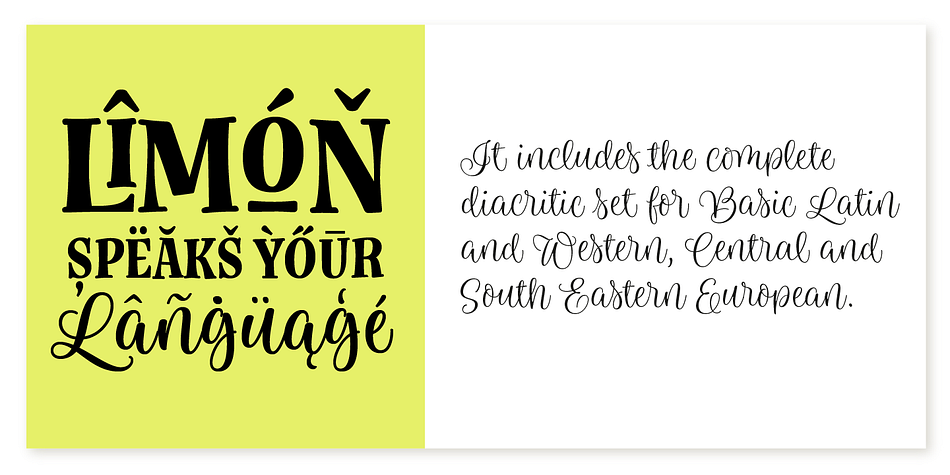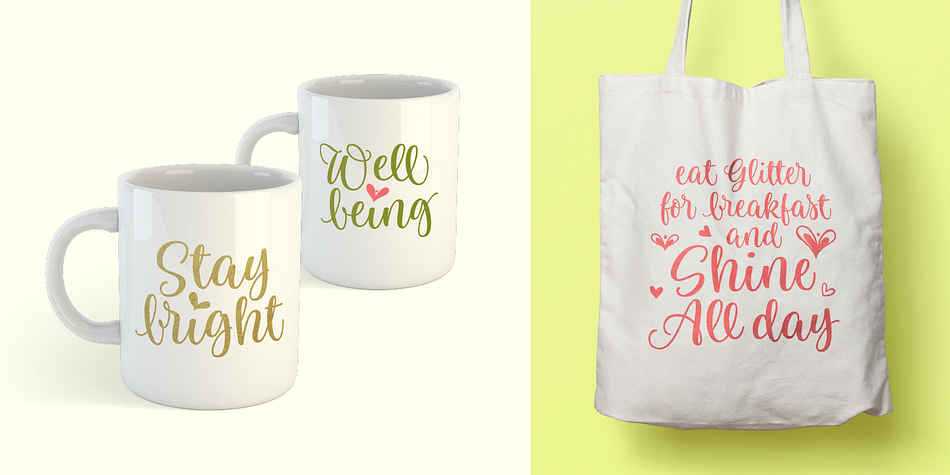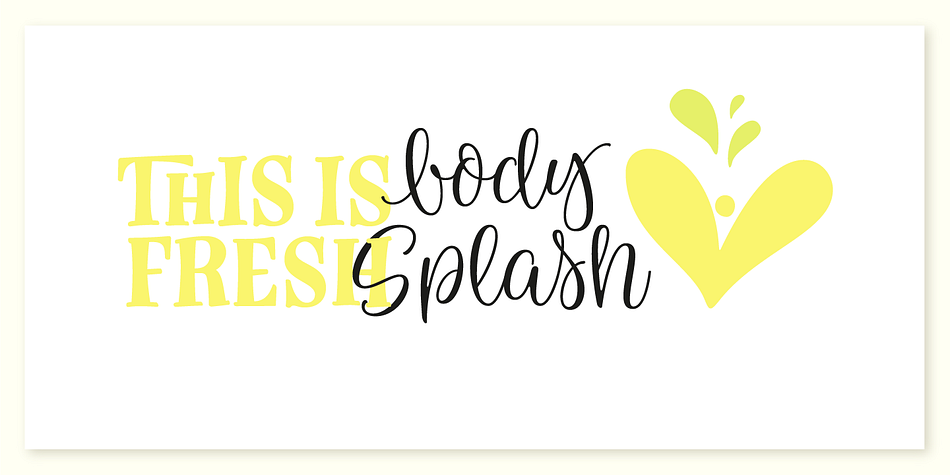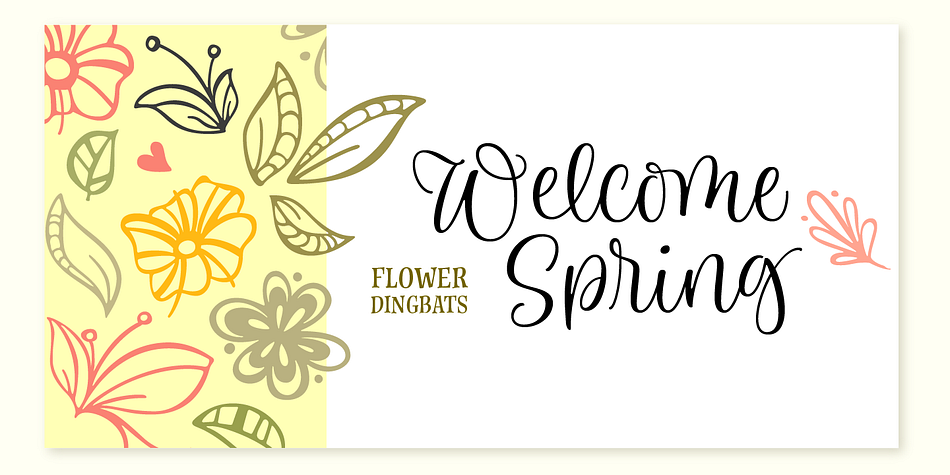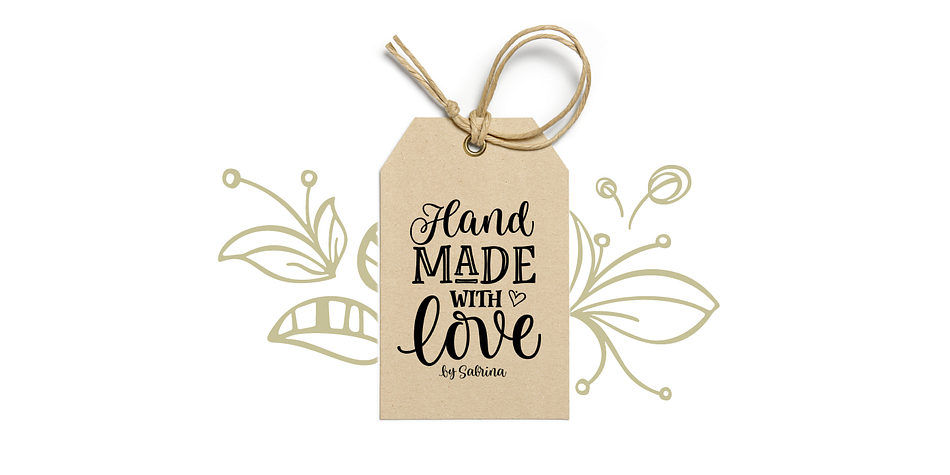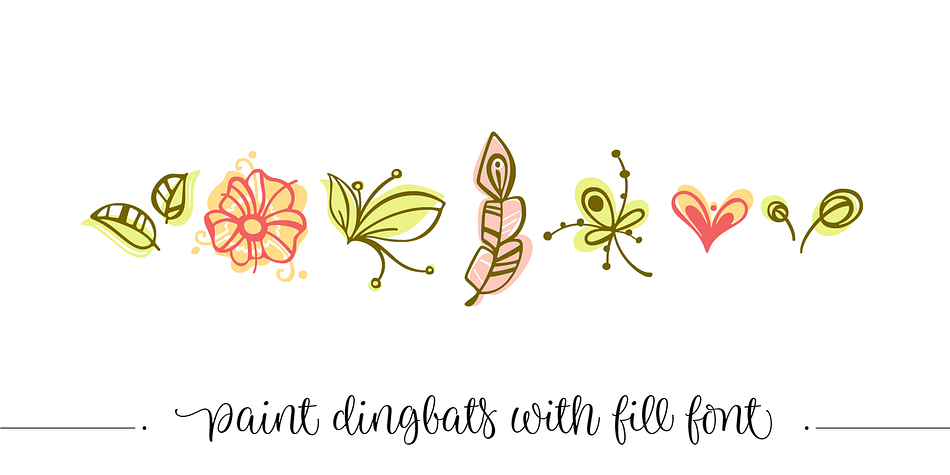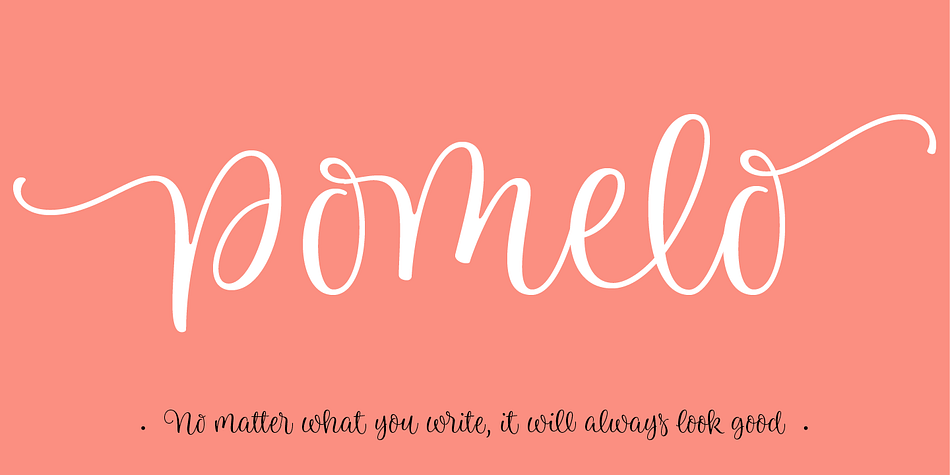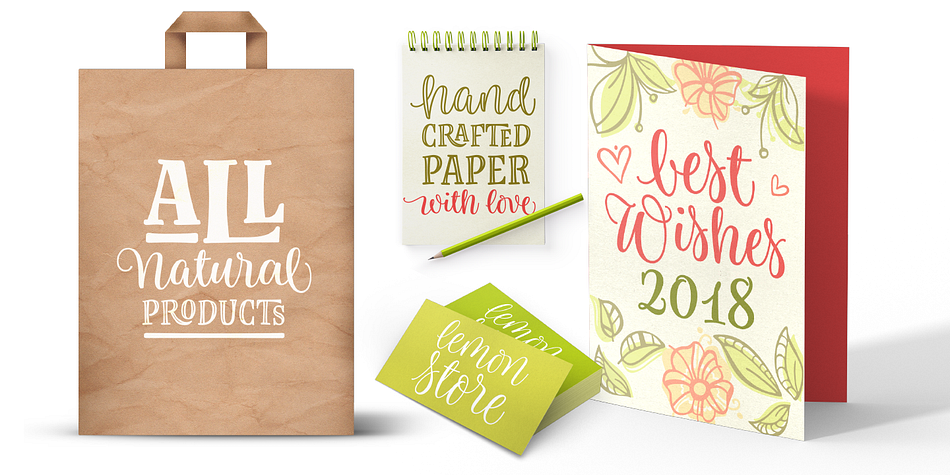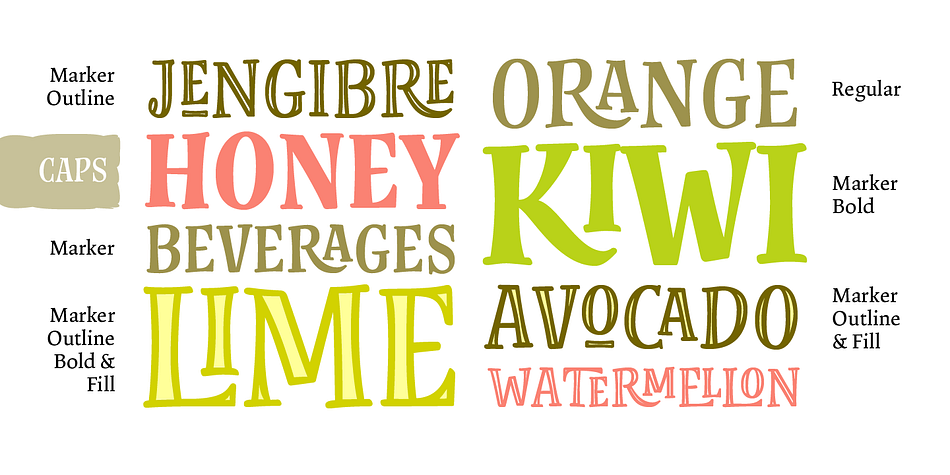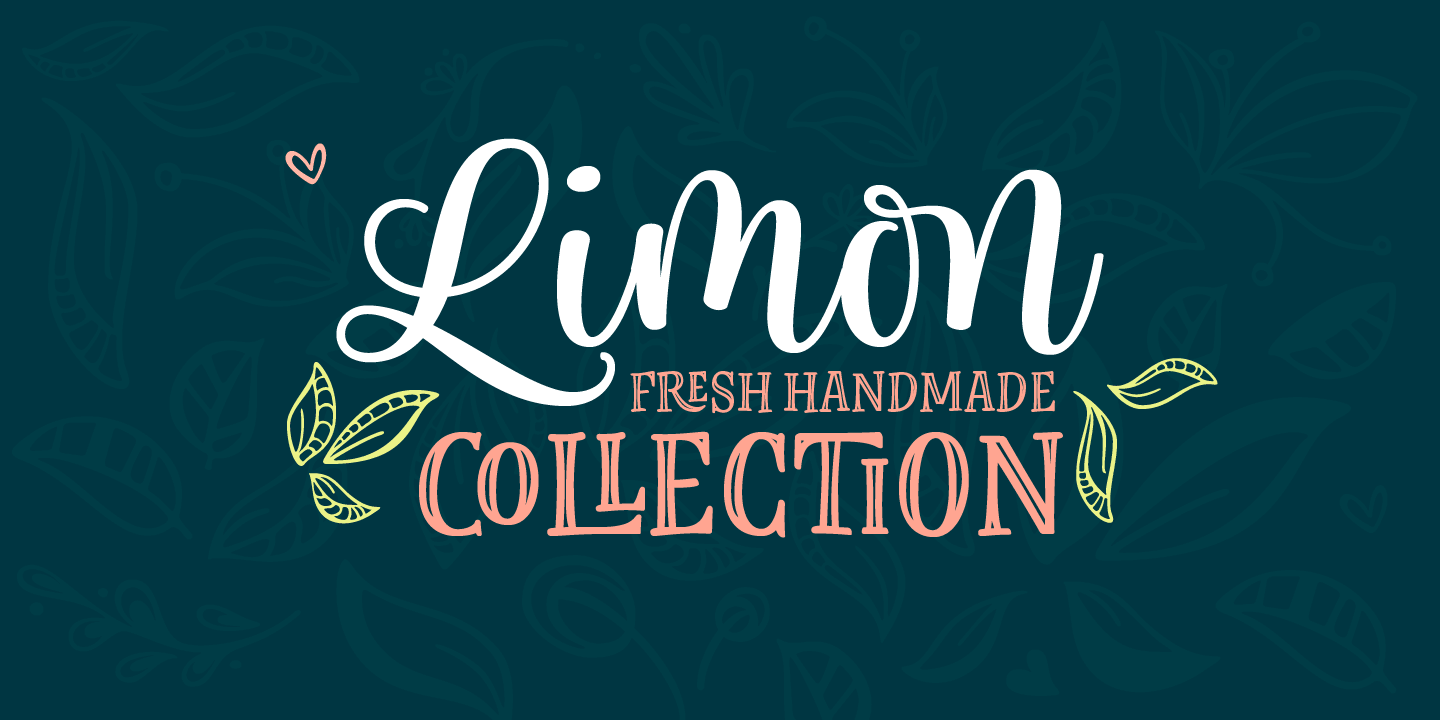
Designed by Sabrina Lopez, Limon is a dingbat, script and hand display font family. This typeface has sixteen styles and was published by Typesenses.
Limon was entirely hand drawn and carefully digitised to get accurate curves but keeping the handmade look. The script fonts are smart scripts, plenty of alternates designed to preserve the calligraphic rhythm. Limon is a beautiful option for menus, magazine covers, wedding invitations, cards and all kind of stationery, packaging and labels.
Default positional forms appear while you are writing when Standard Ligatures and Contextual Alternates features are on. Just keep them activated and let Limon Script do the rest. It warrants that all the connections will look good. Also, you can activate stylistic alternates, swash, titling and stylistic sets to have options for capitals, initials and terminals. Each Script Font reaches a total of more than 2900 glyphs (languages for every alternate included). Use professional software that widely support Open Type features. Otherwise, you may not have access to some glyphs. For further information about features and alternates, see the User Guide. Limon has extensive Western, Central and Eastern European language support.
Limon Script matches very well with Dress and Chonky
Styles | Hand Display, Script, Dingbat |
Designer | Sabrina Mariela Lopez |